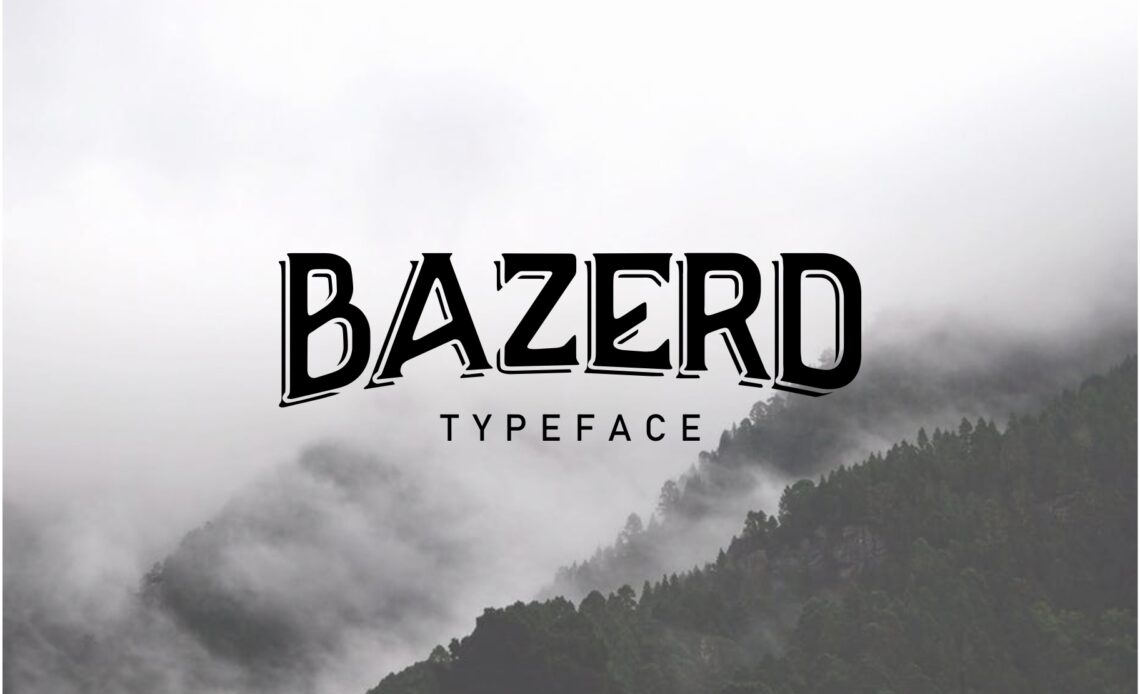
Unleash the grandeur of your designs with Bazerd, a display font that exudes power and boldness. Embark on a creative journey where your projects take center stage, infused with a captivating retro and modern charm. Bazerd's meticulously crafted characters command attention, leaving an indelible mark on every visual masterpiece you create.
Immerse yourself in the cinematic allure of Bazerd's every stroke, evoking a sense of nostalgia and timelessness. Transport your audience to a world of intrigue and enchantment, where your designs captivate and inspire.
With Bazerd as your creative ally, you hold the key to unlocking a treasure trove of design possibilities. From awe-inspiring logos that demand attention to captivating posters that ignite imaginations, Bazerd's versatility knows no bounds.
Unleash your inner artist and let Bazerd ignite your creative spark. Embrace the boundless potential of this stunning display font, and watch as your projects transcend the ordinary, captivating hearts and minds with every stroke.